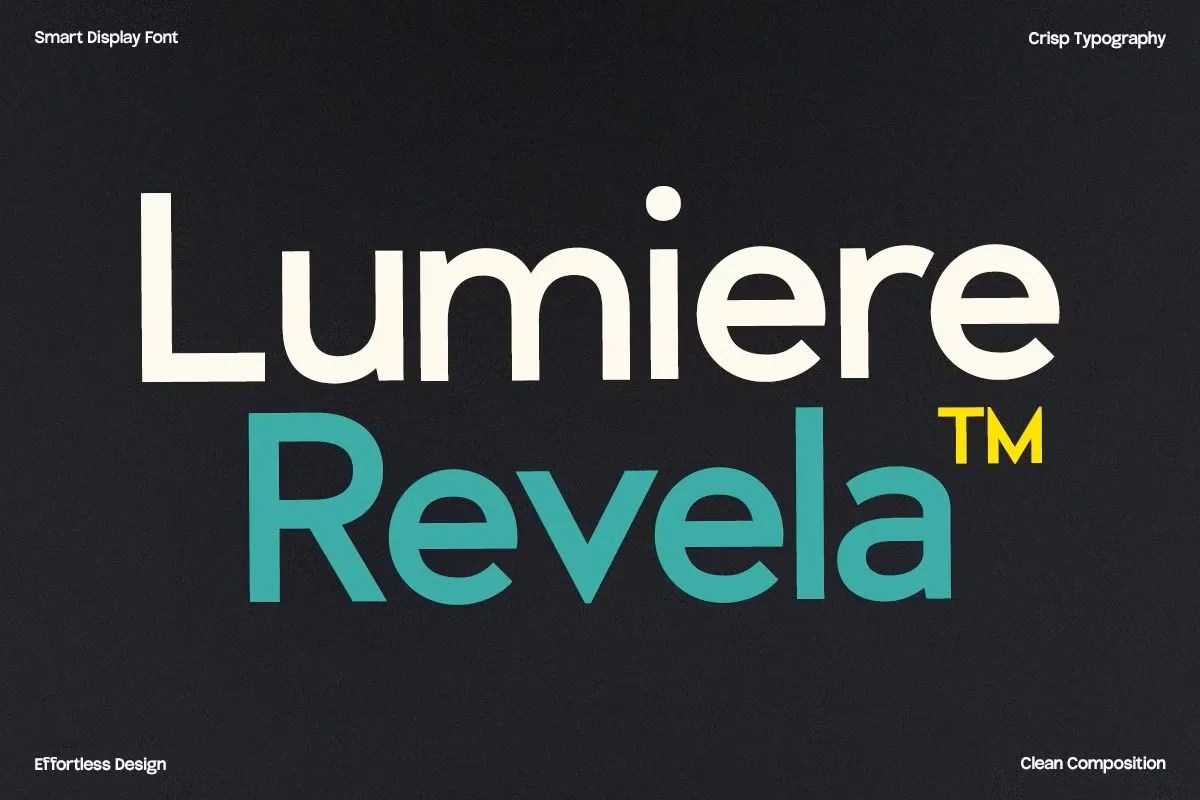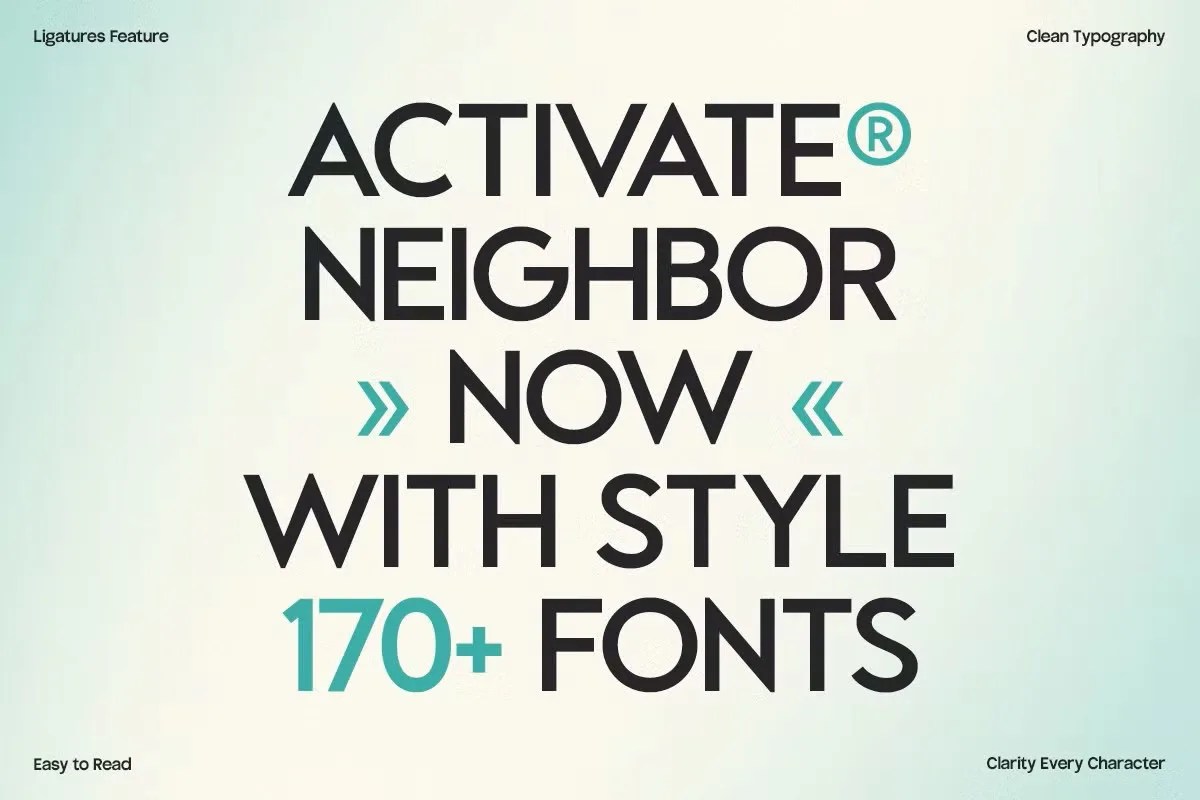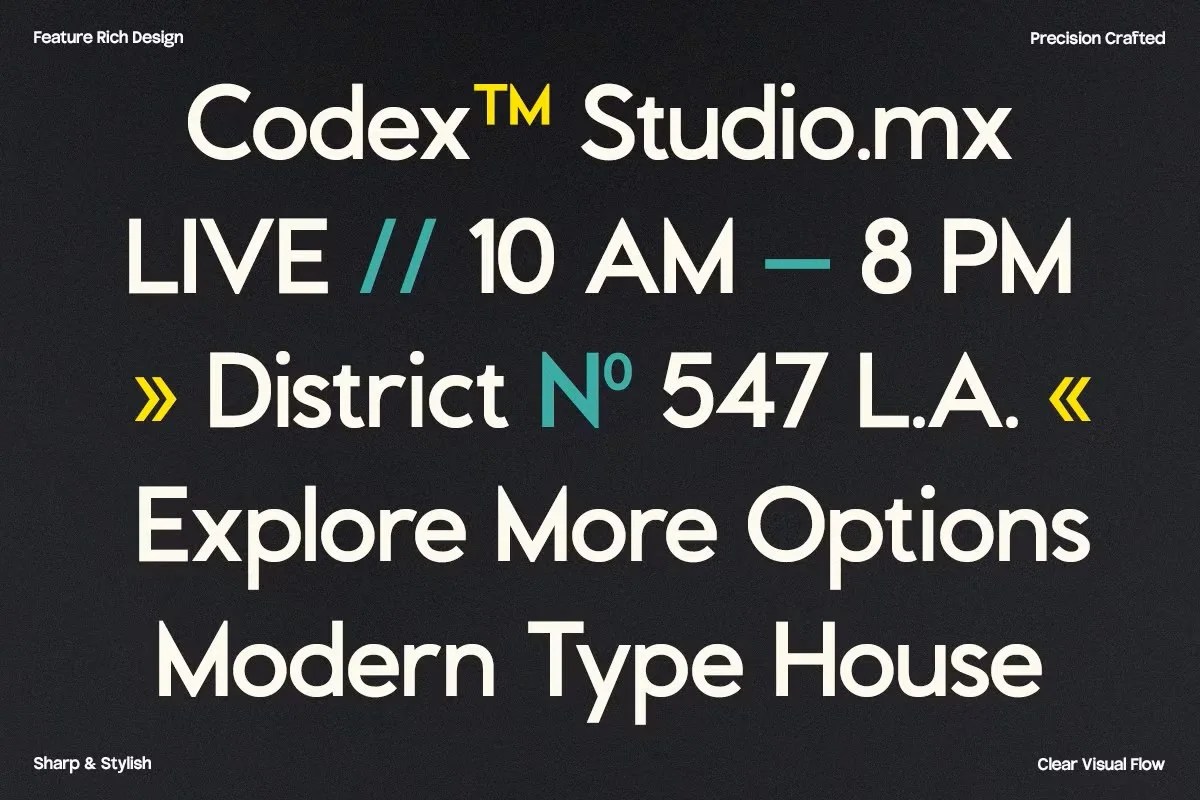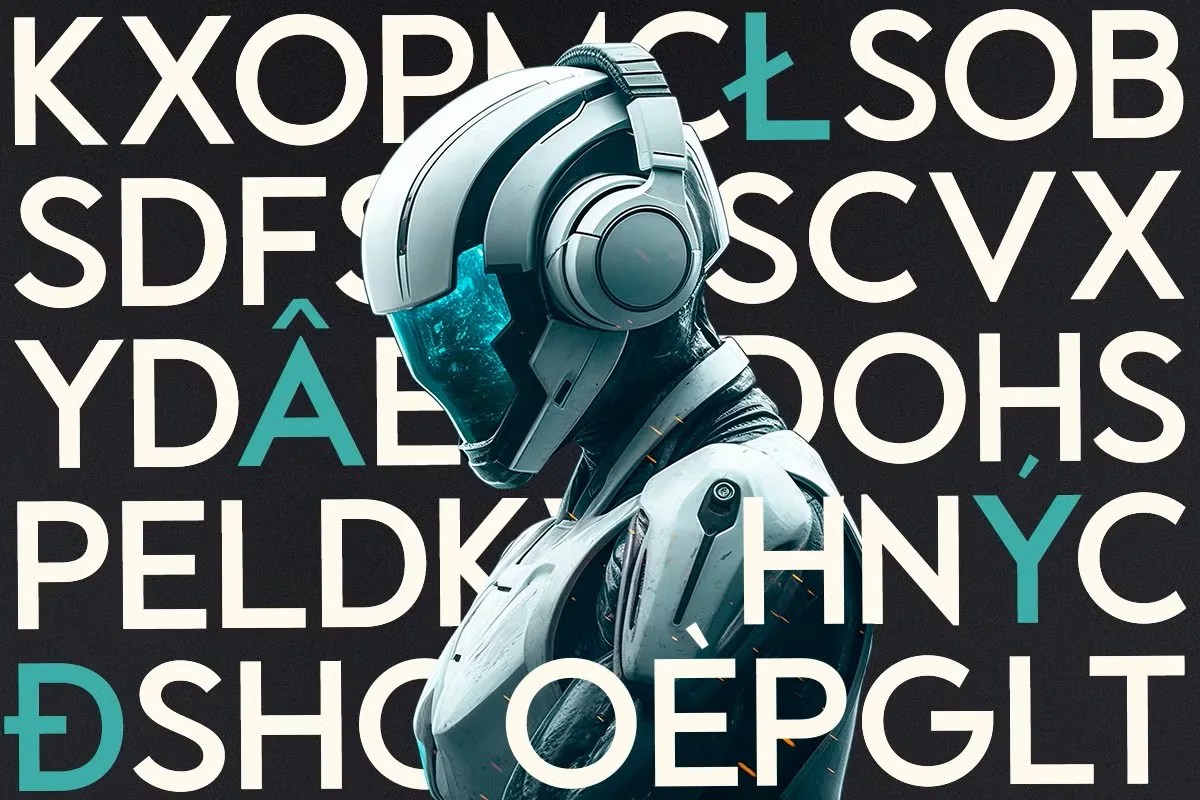
Codex by Glyphonic is a modern sans serif font designed with clean lines and versatile geometry. Its minimalist and professional style makes it ideal for branding, editorial design, presentations, websites, logos, and social media graphics.
This font combines simplicity and elegance, offering excellent readability for both print and digital use. Whether you’re designing corporate identities, posters, product packaging, or creative layouts, Codex adapts seamlessly to any project.
• Clean sans serif font
• Modern and minimal design
• Great for branding & identity
• Perfect for logos & editorial design
• Stylish for web & digital projects
• Professional for presentations
• Excellent readability in print & digital
Codex